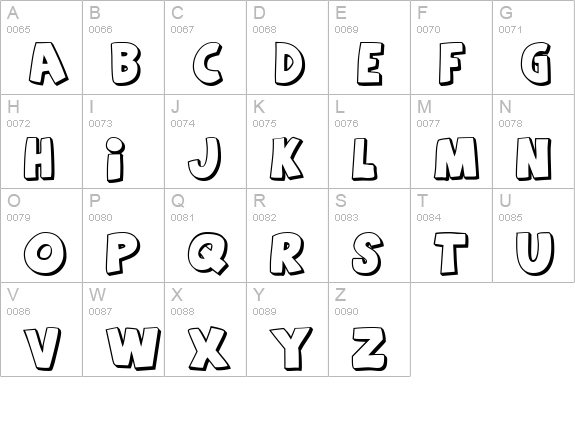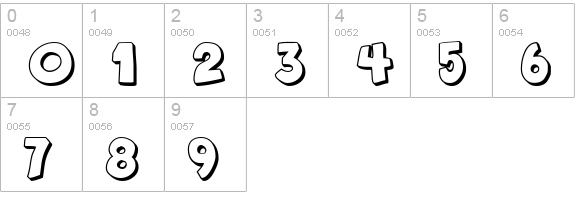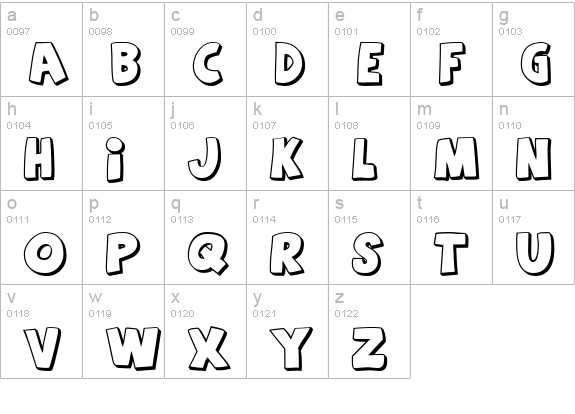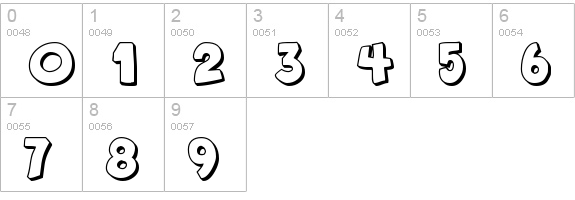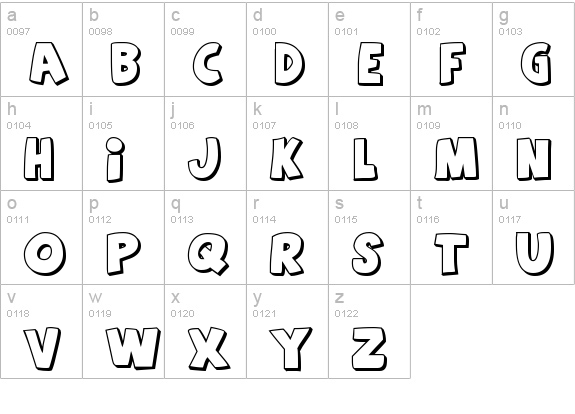
Agent Orange Font Details
Introducing Agent Orange font, a bold and modern typeface designed to make a statement. With its unique and eye-catching design, Agent Orange is perfect for adding a touch of personality to your projects. Whether you're creating posters, logos, or social media graphics, this font will make your text pop and stand out from the crowd. The best part? Agent Orange is completely free to download at FontsMarket.com. That's right, you can get your hands on this sleek and stylish font without spending a dime. So why wait? Add a touch of flair to your designs with Agent Orange today!